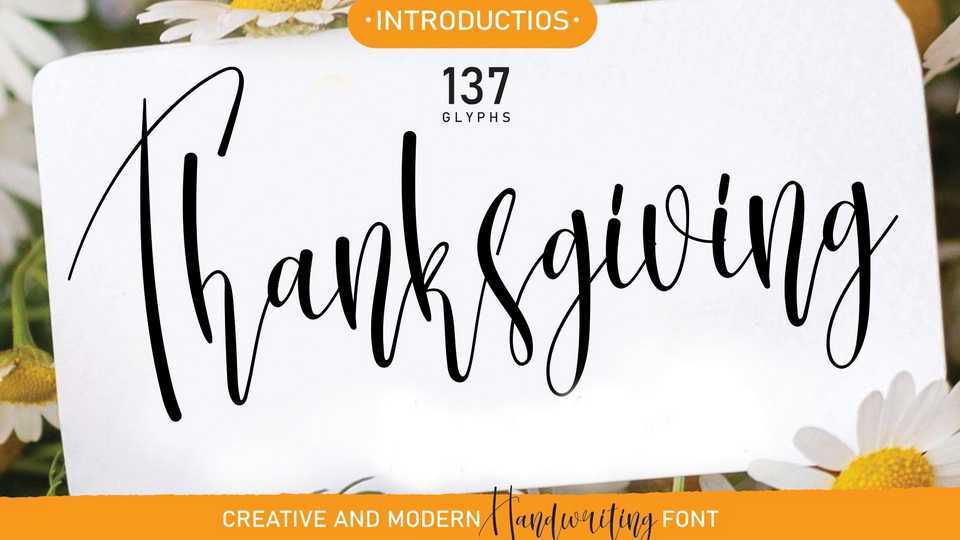
Download Thanksgiving font, a casual handwriting typeface with a dynamic flow. Thanksgiving font is perfect for your creative ideas, both formal and informal.